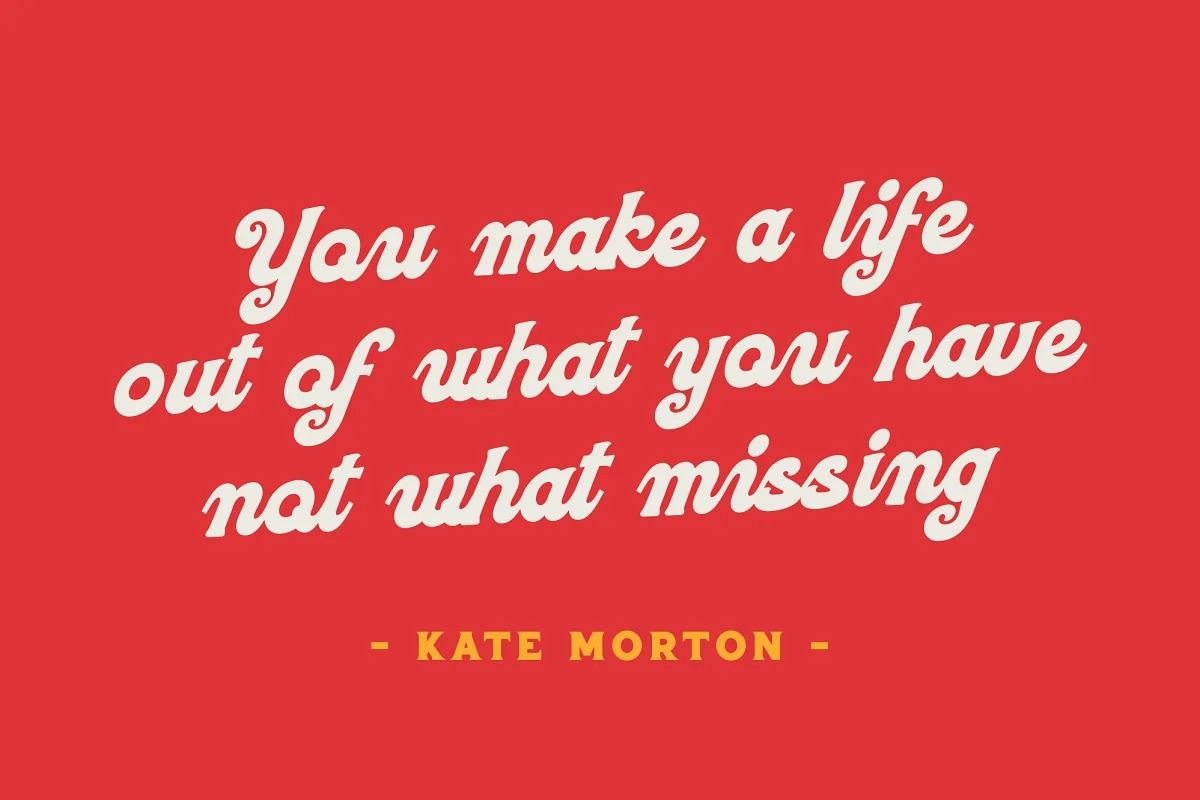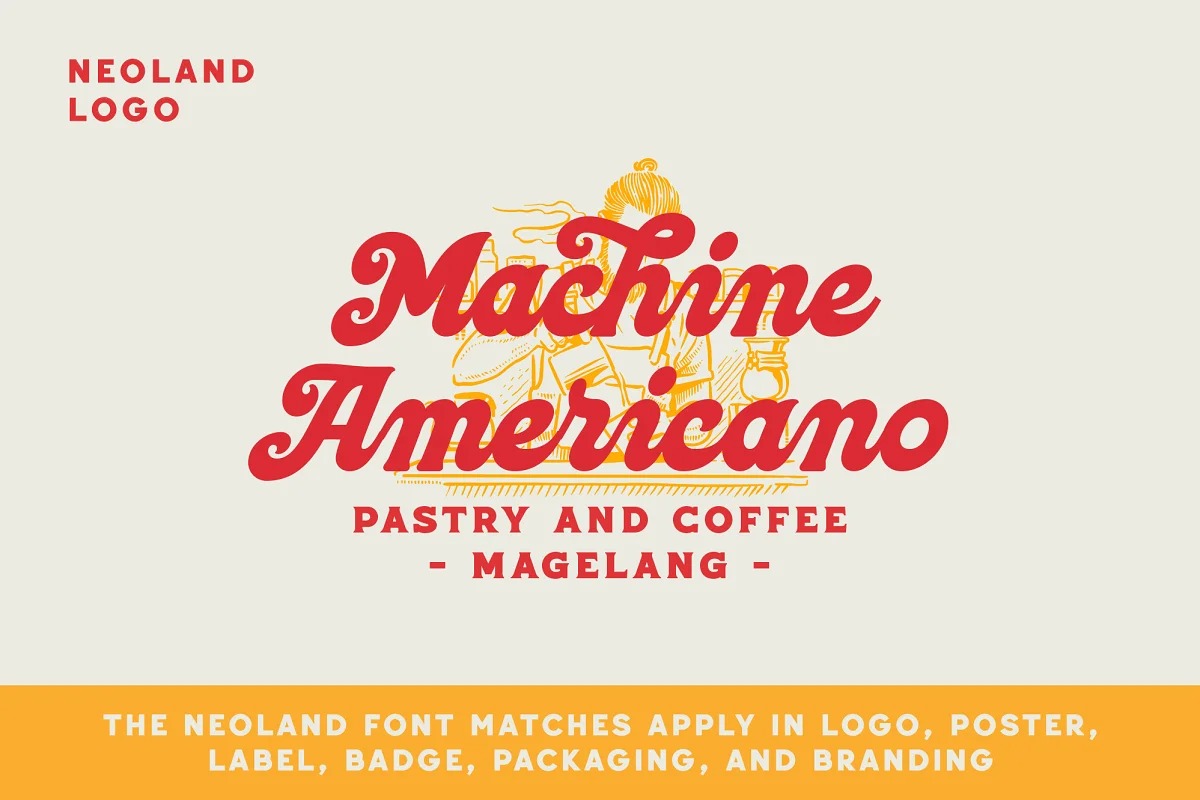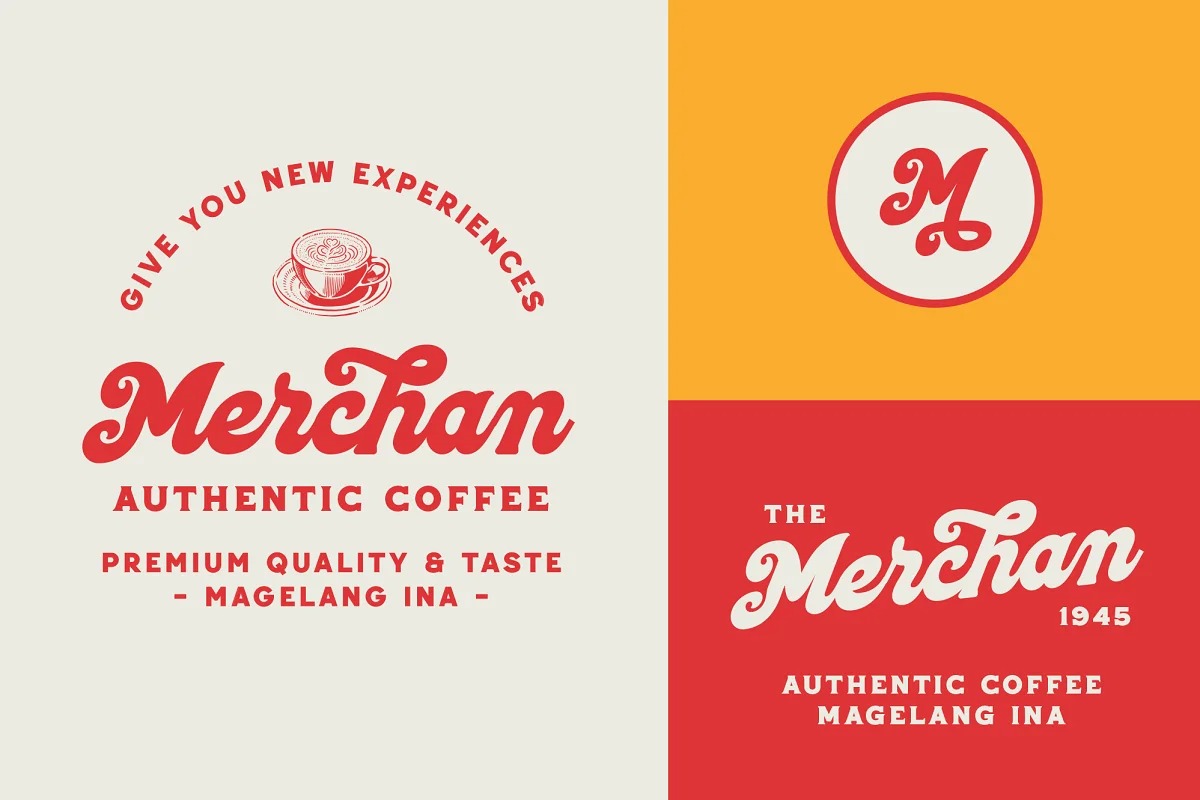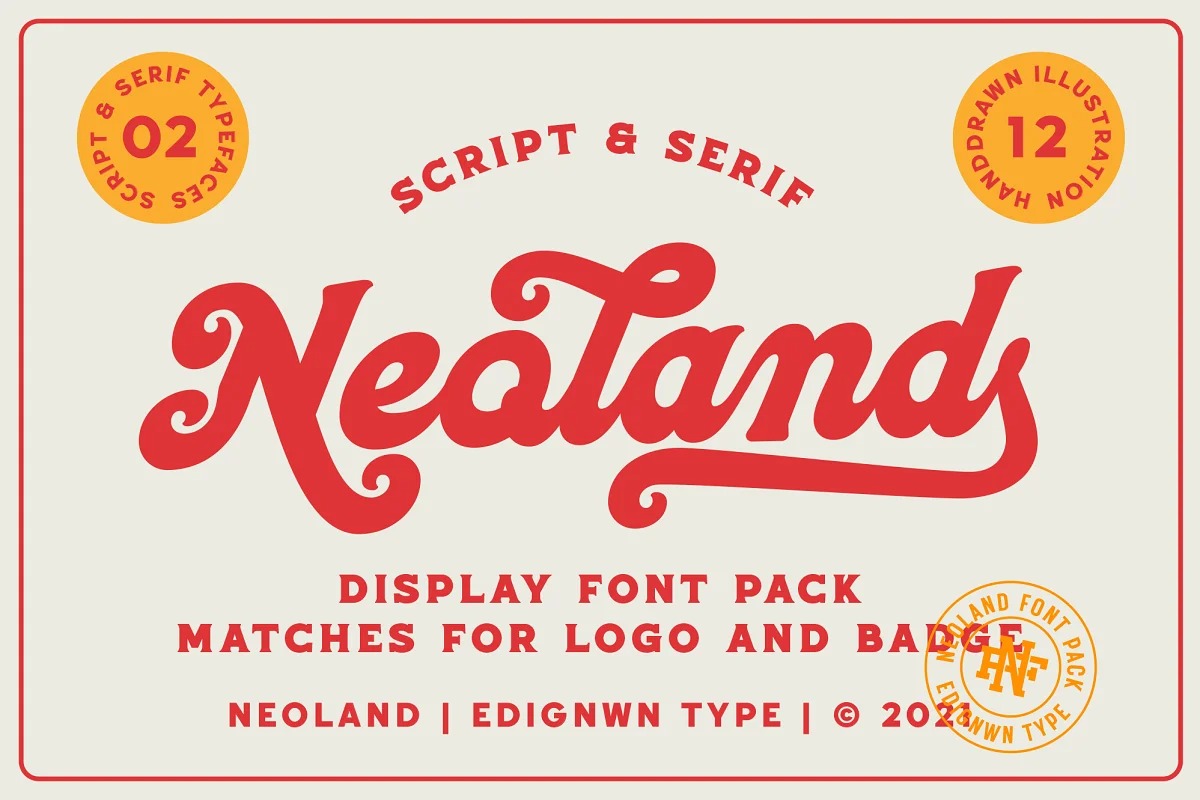
Neoland Font
Neoland Script Font
This is a versatile script typeface. It’s big on swashes, with hints of retro and lots of customisation options. Every font comes with 4 style typefaces (regular, rounded, rough and textured). This script font includes some alternates and ligatures. The Retrokia matches apply in some designs such as the logo, poster, label, badge, packaging, t-shirt, branding, quotes and more custom design.